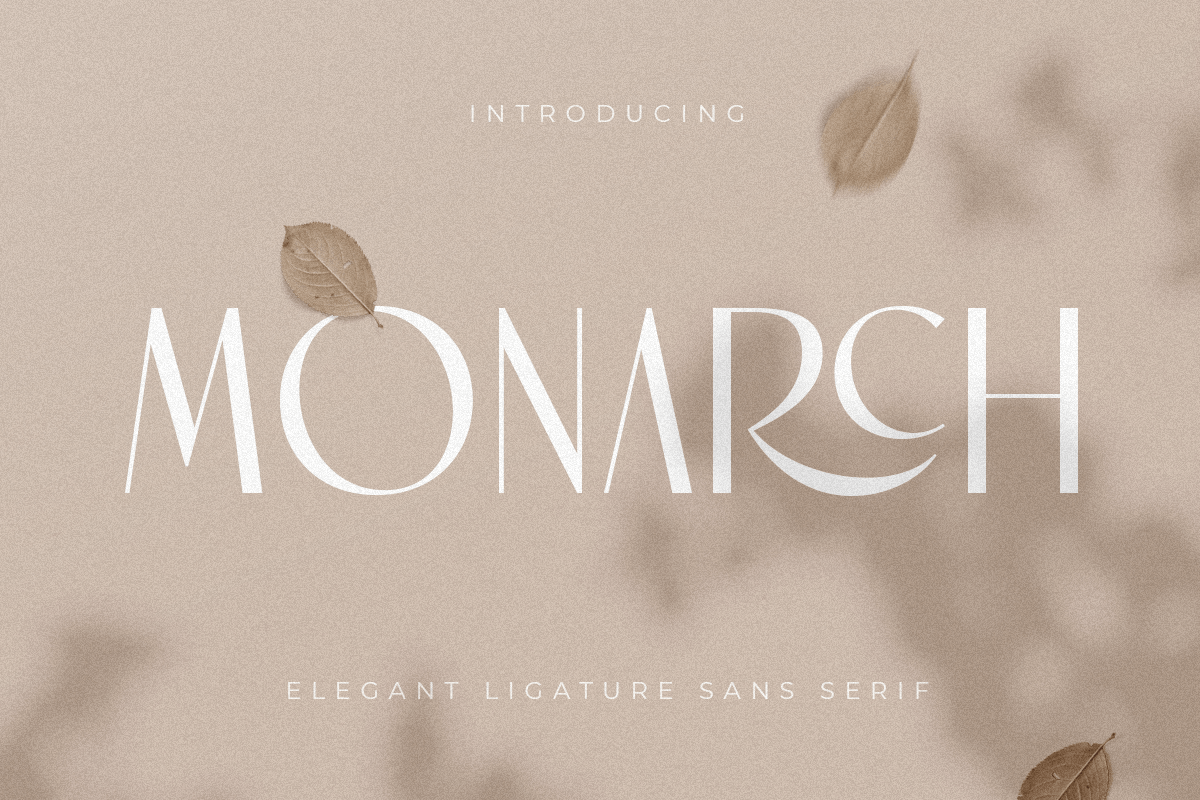
Monarch
-Elegant Ligature Serif
Monarch
New Ligature serif that we created special for elegant projects with extra ligature and alternates in unique shape will be ready to add value of your brand. It so nice to leverage designer or product owner that need solutions to make their design look more elegant and luxury. And specially for Monarch font, We prepared any ligatures and any alternate characters to help you create unlimited variations for your creative needs.